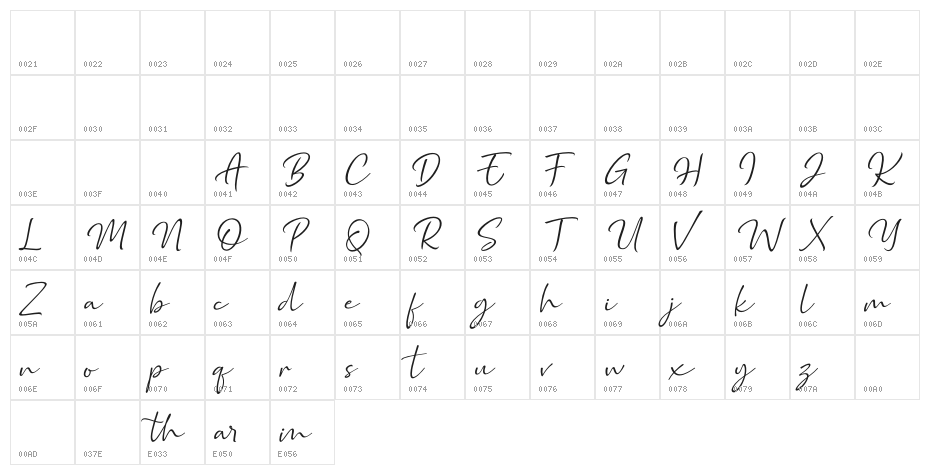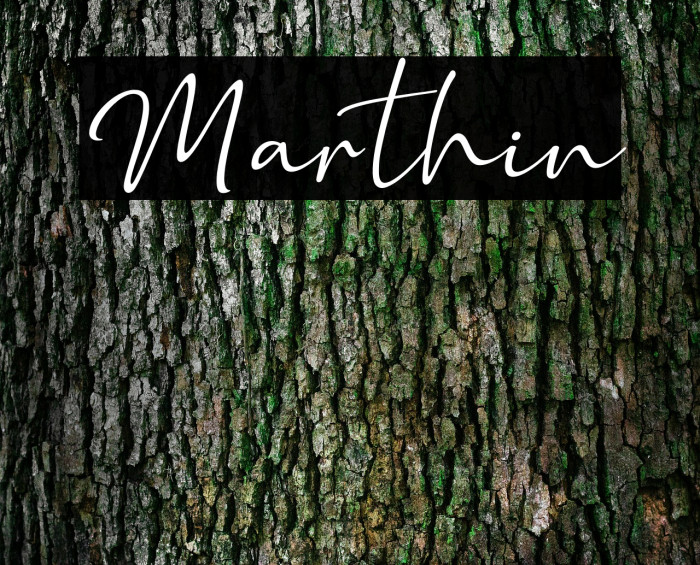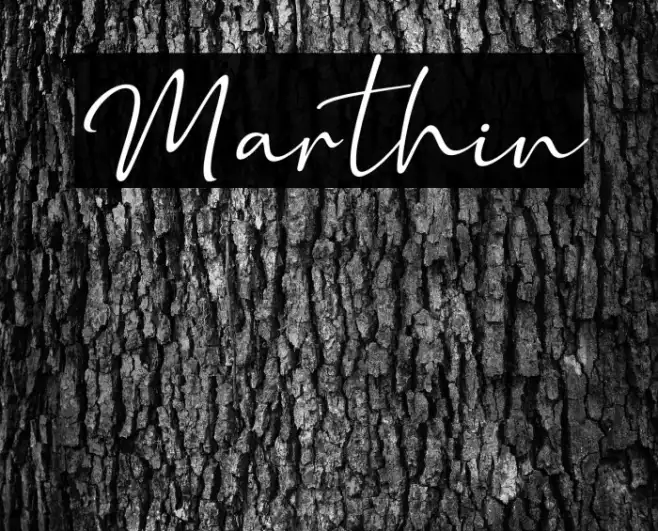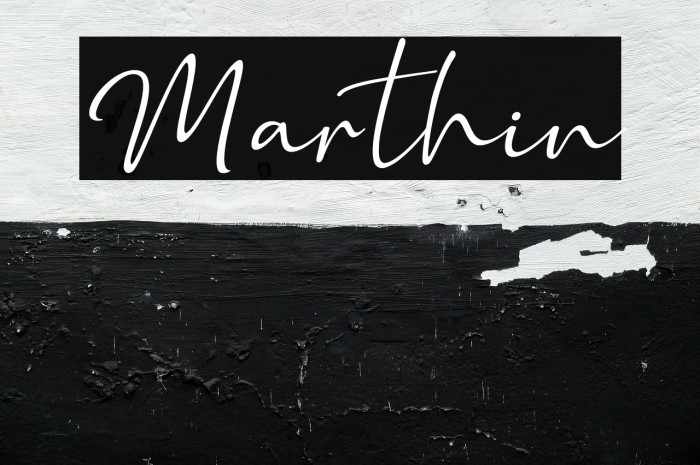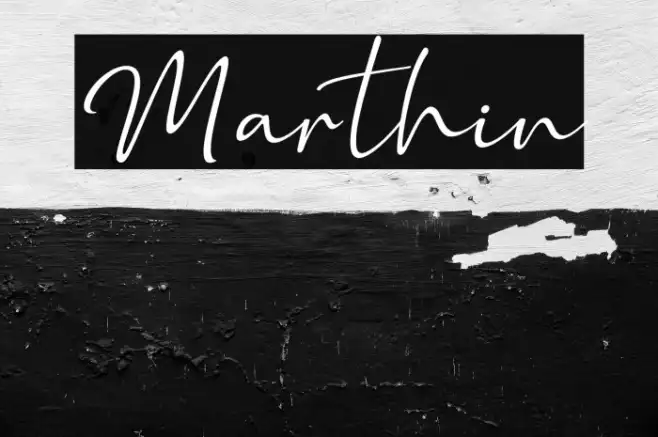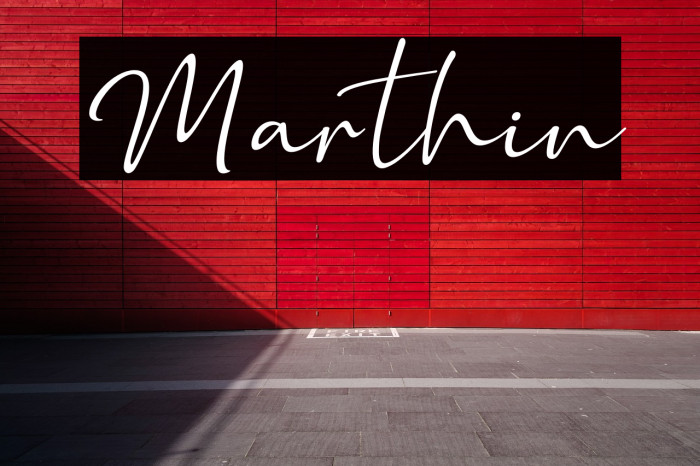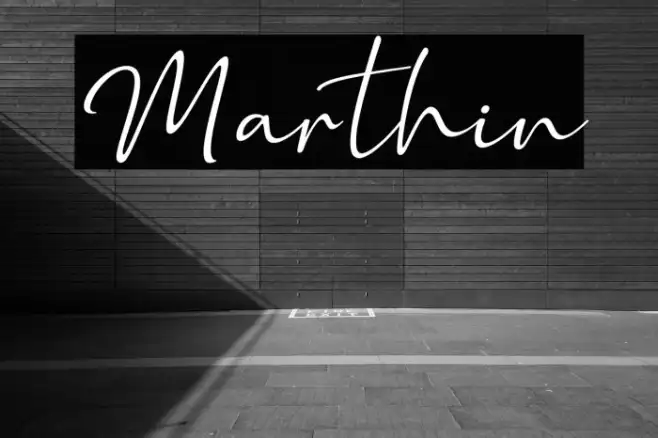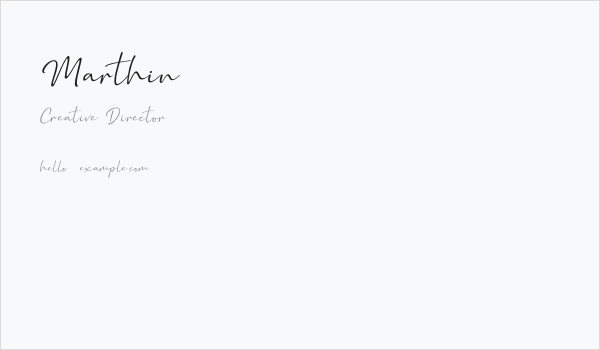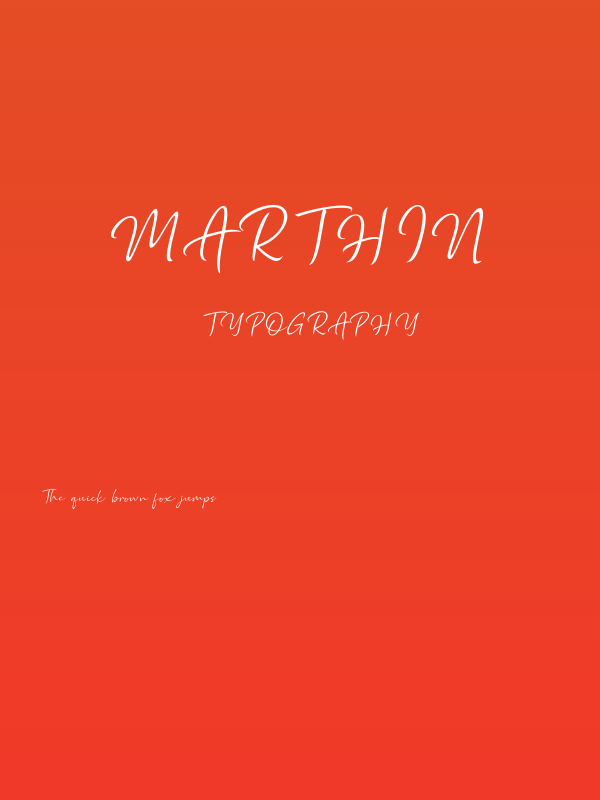
Marthin Font
Marthin Description
This font exudes elegance and sophistication with its flowing, cursive style. Each letter is crafted with smooth, continuous strokes that mimic the fluidity of handwriting. The uppercase letters are slightly more ornate, featuring subtle flourishes that add a touch of flair without overwhelming the overall design. The lowercase letters maintain a consistent rhythm, ensuring readability while preserving the font's artistic charm. The characters are well-spaced, allowing for a harmonious balance between each letter. This font is ideal for projects that require a personal, yet polished touch, such as invitations, branding, and editorial design.
Overall StyleElegant
Use CaseLogos, Invitations, Editorial design
Proposed ProjectsIdeal for wedding invitations, personal branding, greeting cards, and editorial design.